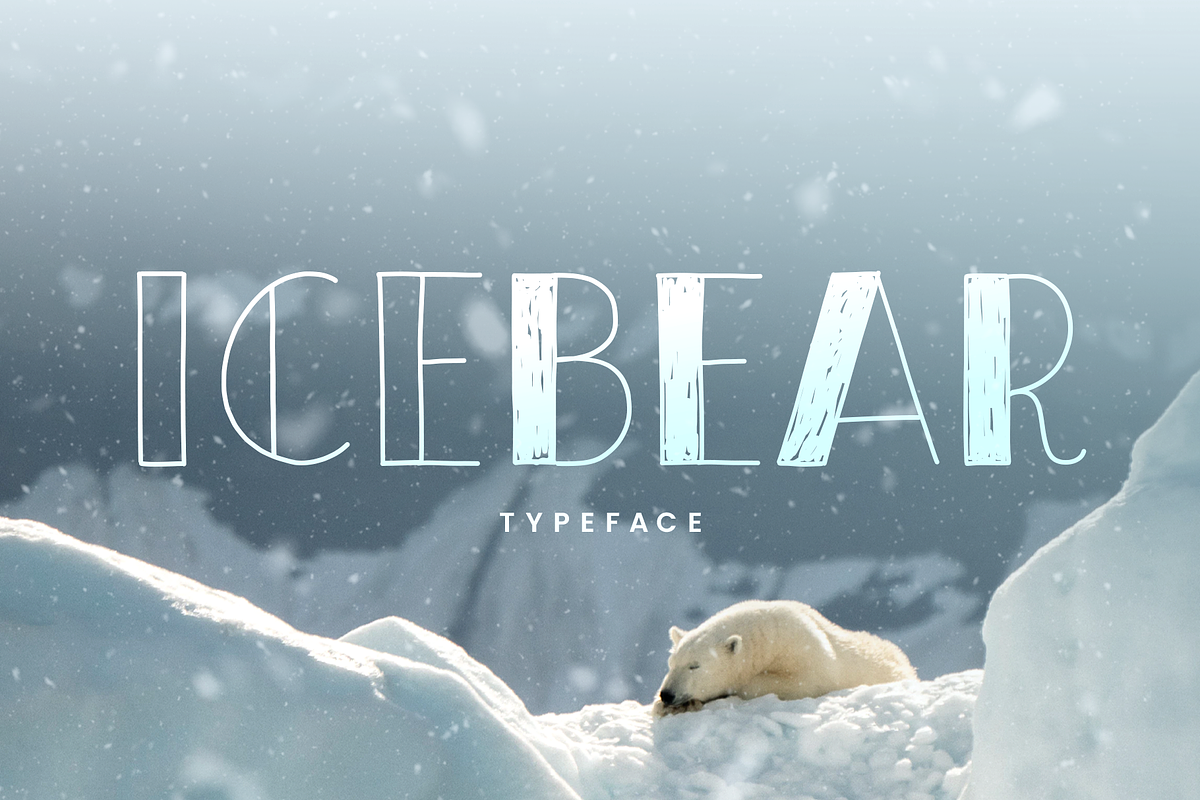
IceBear Two-Faced Font Free Download is a bold, experimental typeface with a split-personality design—combining dual styles within each character for a striking, modern look. With one half clean and the other half stylized or textured, IceBear is perfect for posters, album art, editorial layouts, branding, and streetwear graphics that demand attention.
This font plays with contrast and visual tension, making it ideal for edgy, creative projects where uniqueness is key. Whether you're aiming for an avant-garde fashion statement or a futuristic interface, IceBear delivers a sharp, distinctive presence.
Designed to stand out in both print and digital media, this two-faced concept adds character and contrast to every word.